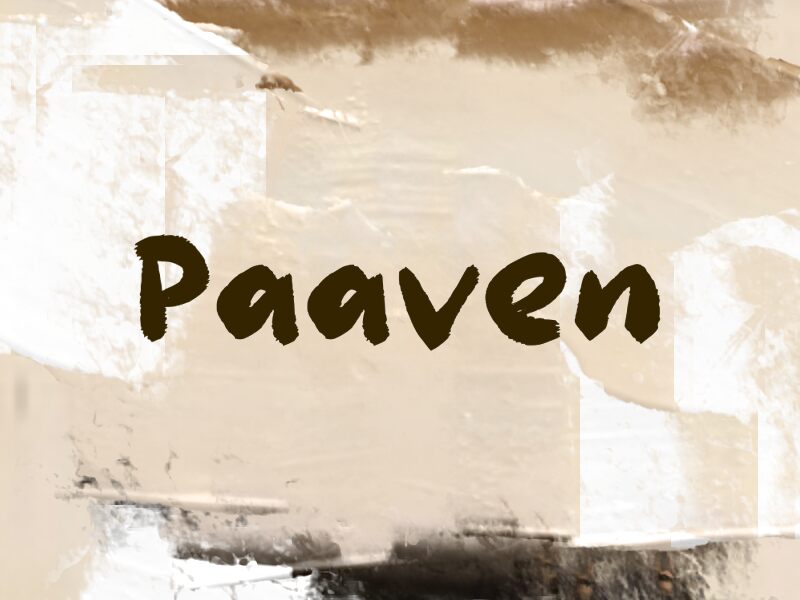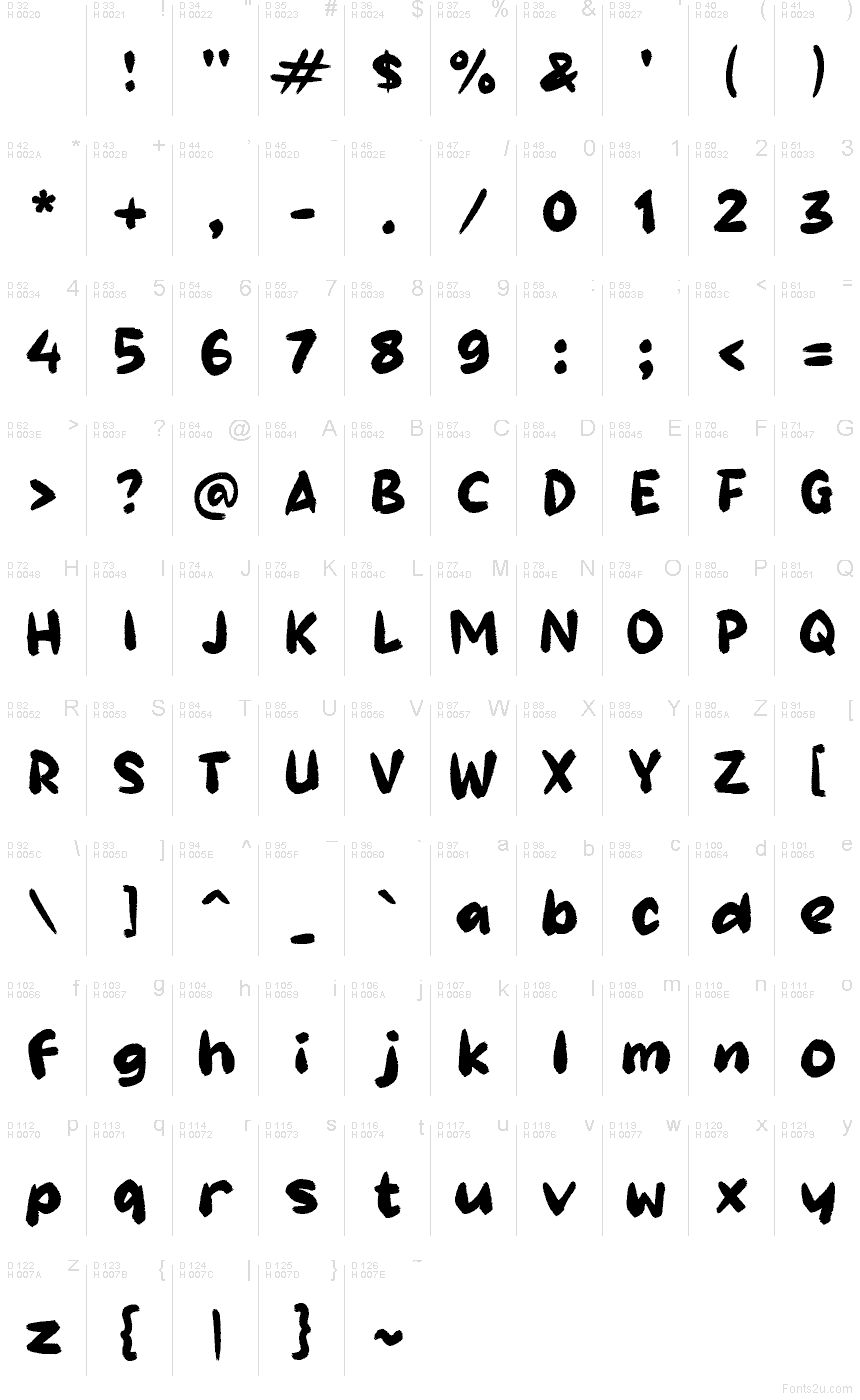
Paaven
Paaven font by wep is a free brush typeface that feels like it’s been painted straight onto the screen with a thick, inky marker. The strokes are bold, rounded, and slightly uneven, giving every word a friendly, hand-done energy that you can almost feel under your fingertips. It has enough heft to grab attention, but the soft, blobby edges keep it approachable rather than aggressive.
Using Paaven, this free font shines on playful logos, kids’ event posters, handmade product labels, crafty social graphics, quote cards, and casual branding for cafes or street-food vendors. The dense, textured letters hold up beautifully at large sizes, where their rough edges really show. For a clean contrast, pair Paaven with a simple geometric sans for body text and let this brush script handle the headlines and main hooks.